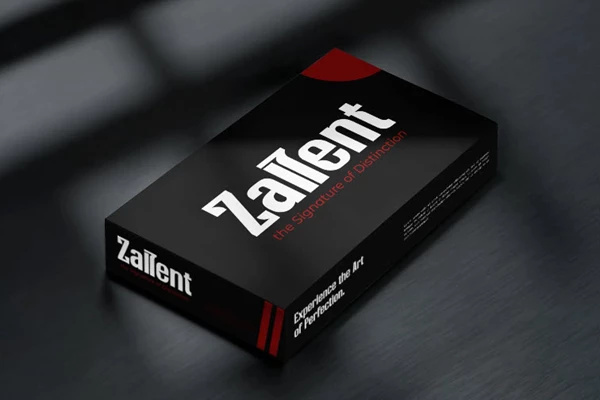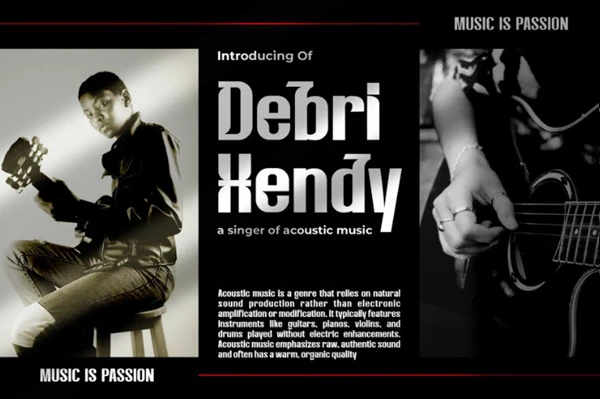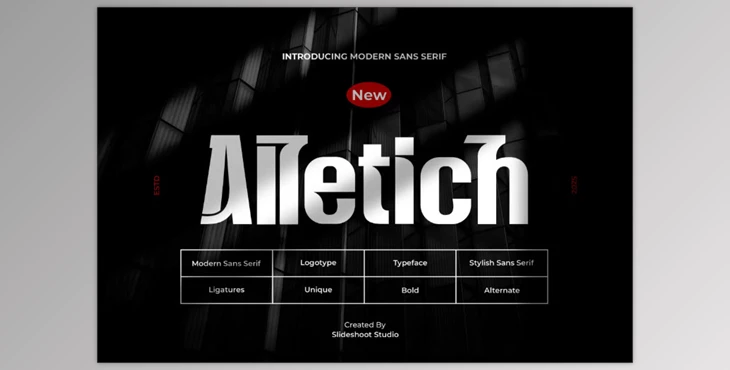
Slide Shoot - Alletich || Unique Modern Sans Serif:
Slide Shoot – Alletich is a modern, stylish sans serif typeface that can be effortlessly used across diverse creative tasks. From brand advertising to logo design and even lettering, Alletich will add a refined look to any visual presentation. This font is perfect for clothing, posters, magazines, packaging, and even photographic books, and special event albums, making it ideal for book covers. Alletich can be used to make every design project unforgettable.
Some great features of Slide Shoot - Alletich || Unique Modern Sans Serif:
- A comprehensive set of characters covering both uppercase and lowercase letters
- Complete set of numbers alongside punctuation marks
- Supports the use of alternate characters and boundaries for designers' creativity